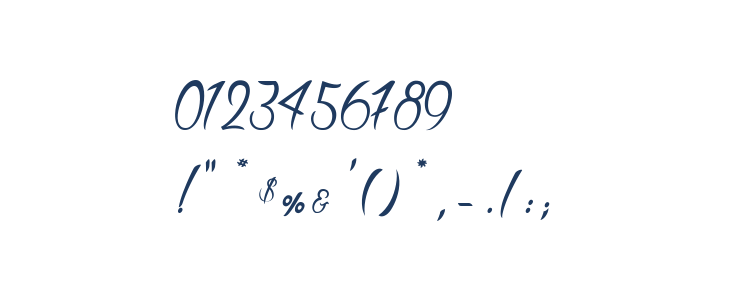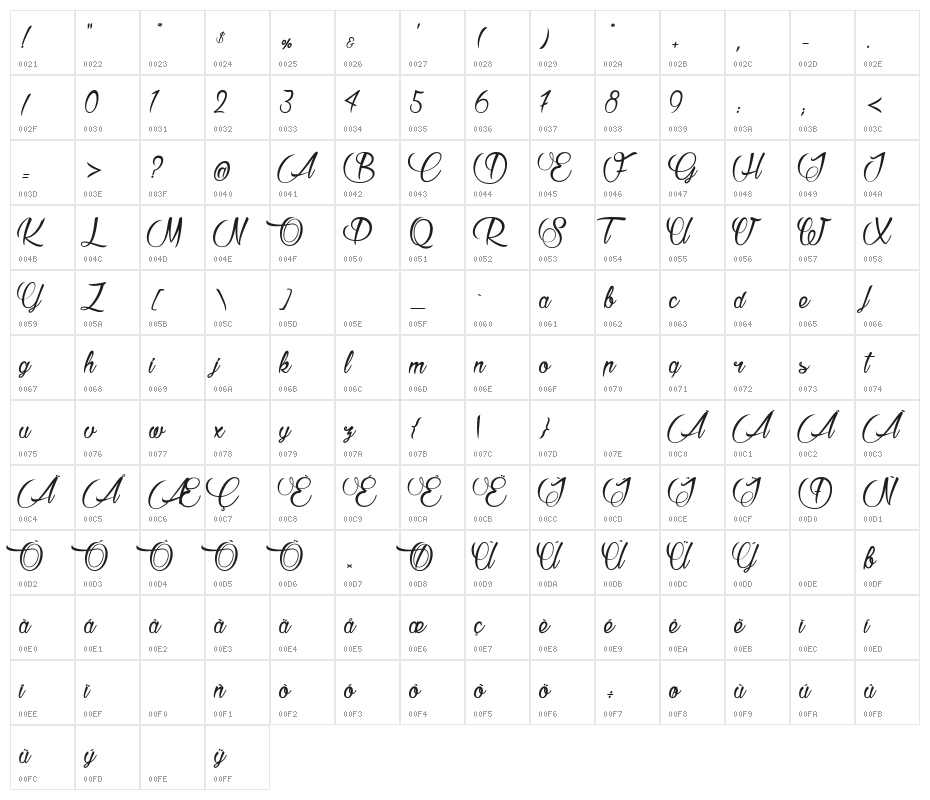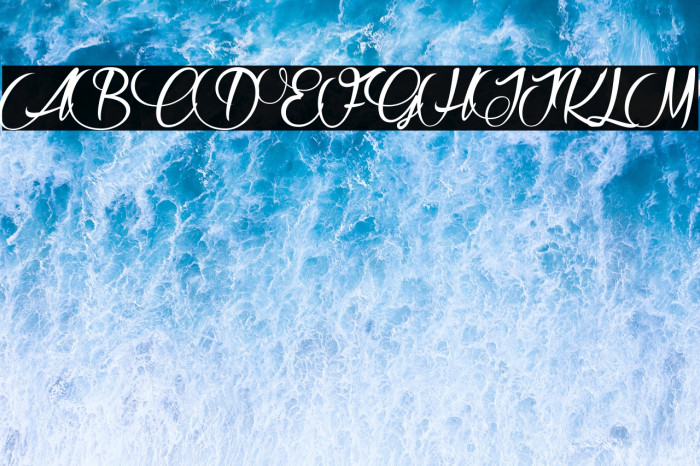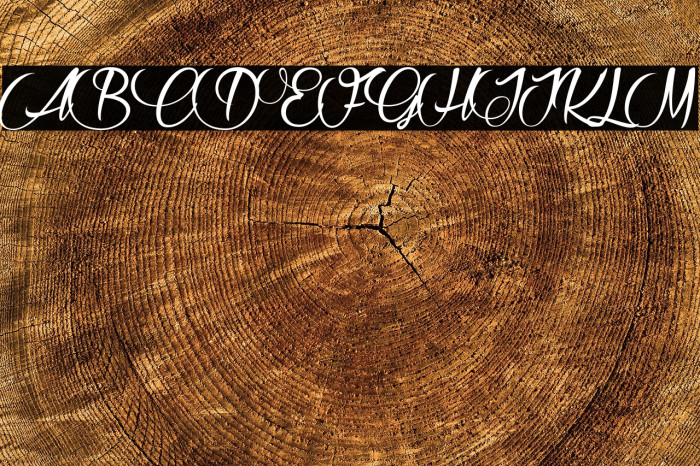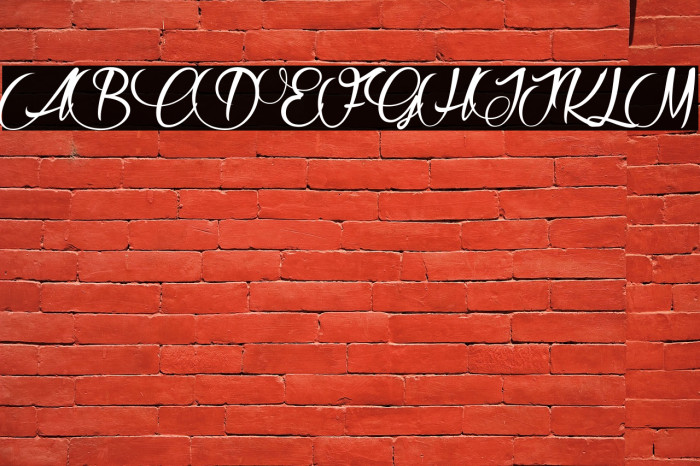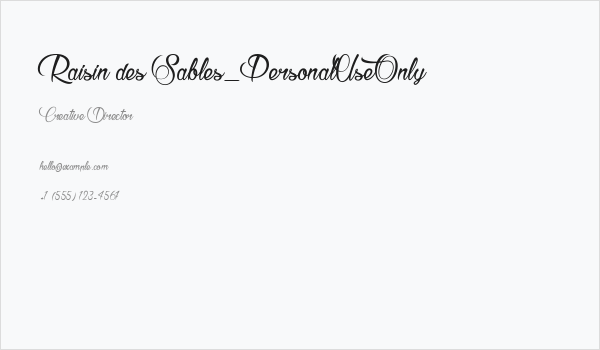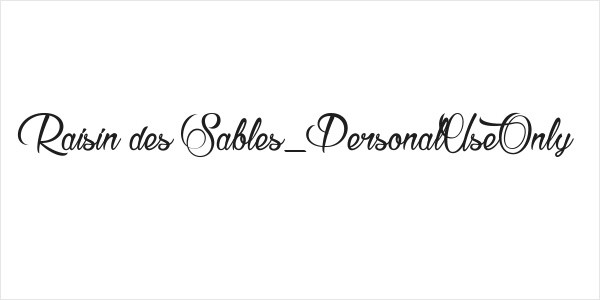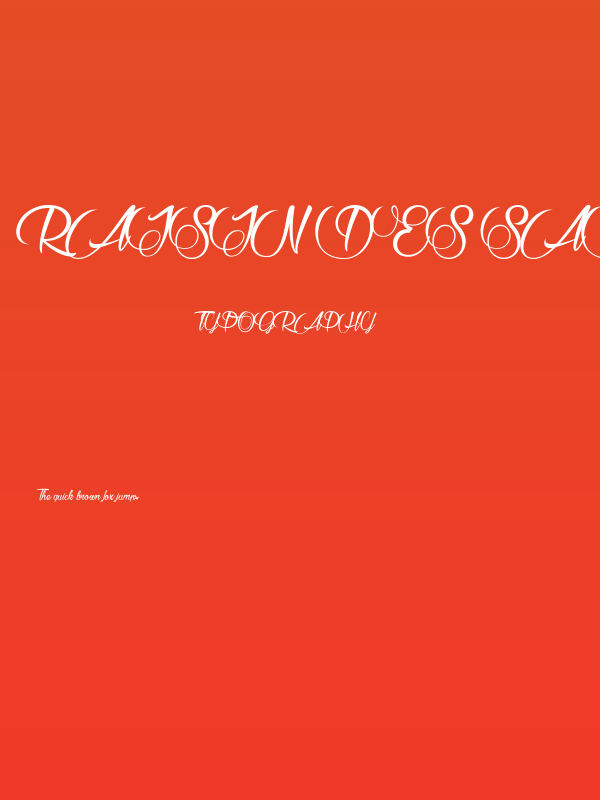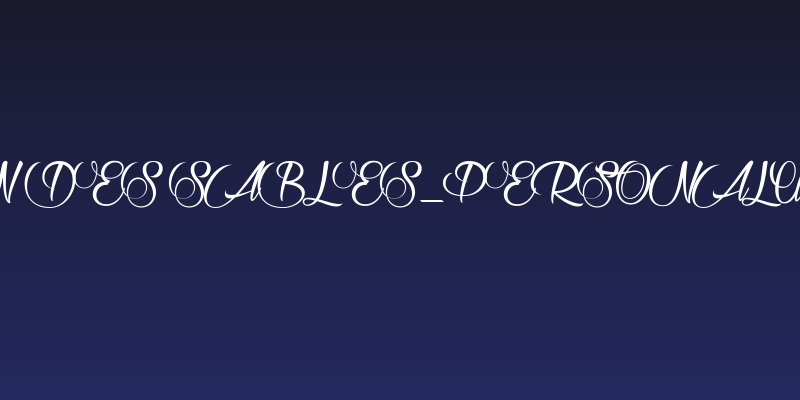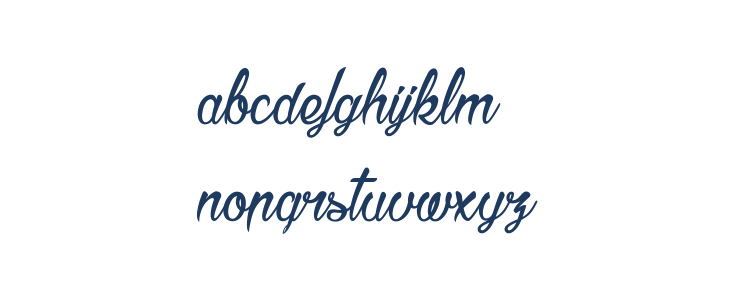
Raisin des Sables_PersonalUseOnly Font
Raisin des Sables_PersonalUseOnly Description
This elegant script font features a flowing, cursive style with intricate loops and swirls, giving it a sophisticated and artistic appearance. The uppercase letters are particularly ornate, with elaborate flourishes that add a touch of grandeur. The lowercase letters maintain a consistent fluidity, making them highly readable despite their decorative nature. The numerals and special characters complement the alphabet with their cohesive design, ensuring a harmonious overall look. This font exudes a sense of elegance and creativity, making it ideal for projects that require a touch of class and personality.